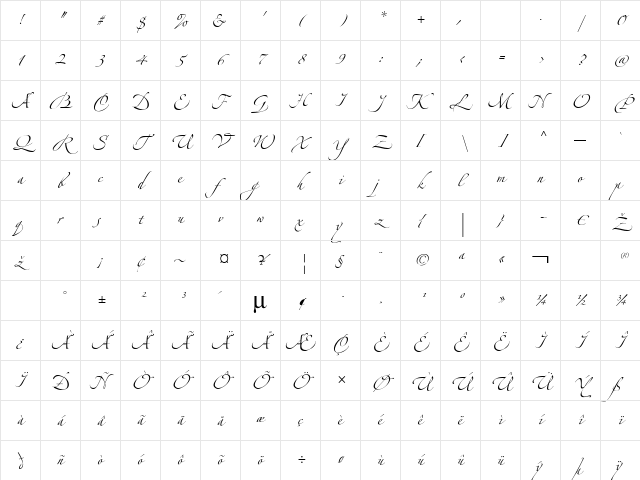
Alexandra Zeferino One Regular Free Font
Alexandra Zeferino One Regular
Foundry: Alexandria Gophmann aka Fee
Designer: Gophmann Alexandra Leopoldovna
Design Context for Alexandra Zeferino One
Alexandra Zeferino One is a composed and adaptable typeface that performs quietly and consistently across a wide range of design contexts.
Who designed the Alexandra Zeferino One Regular font?